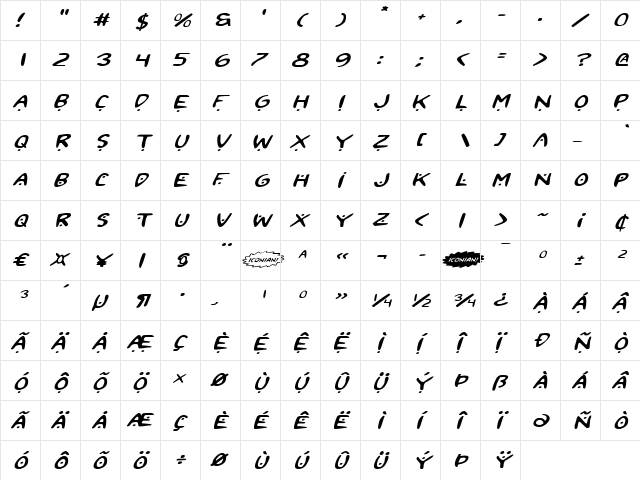
2Toon2 Expanded Italic Font Preview
2Toon2 Expanded Italic Expanded Italic
2Toon2 Expanded Italic Font Details
Design Context for 2Toon2 Expanded Italic Typeface
2Toon2 Expanded Italic is a composed and adaptable typeface that performs quietly and consistently across a wide range of design contexts. The dynamic lean of this cut emphasises speed and emphasis in any layout.
Pro Tip: Try 2Toon2 Expanded Italic for annotation and caption copy alongside an upright companion — the contrast in angle creates a dynamic but ordered typographic system.